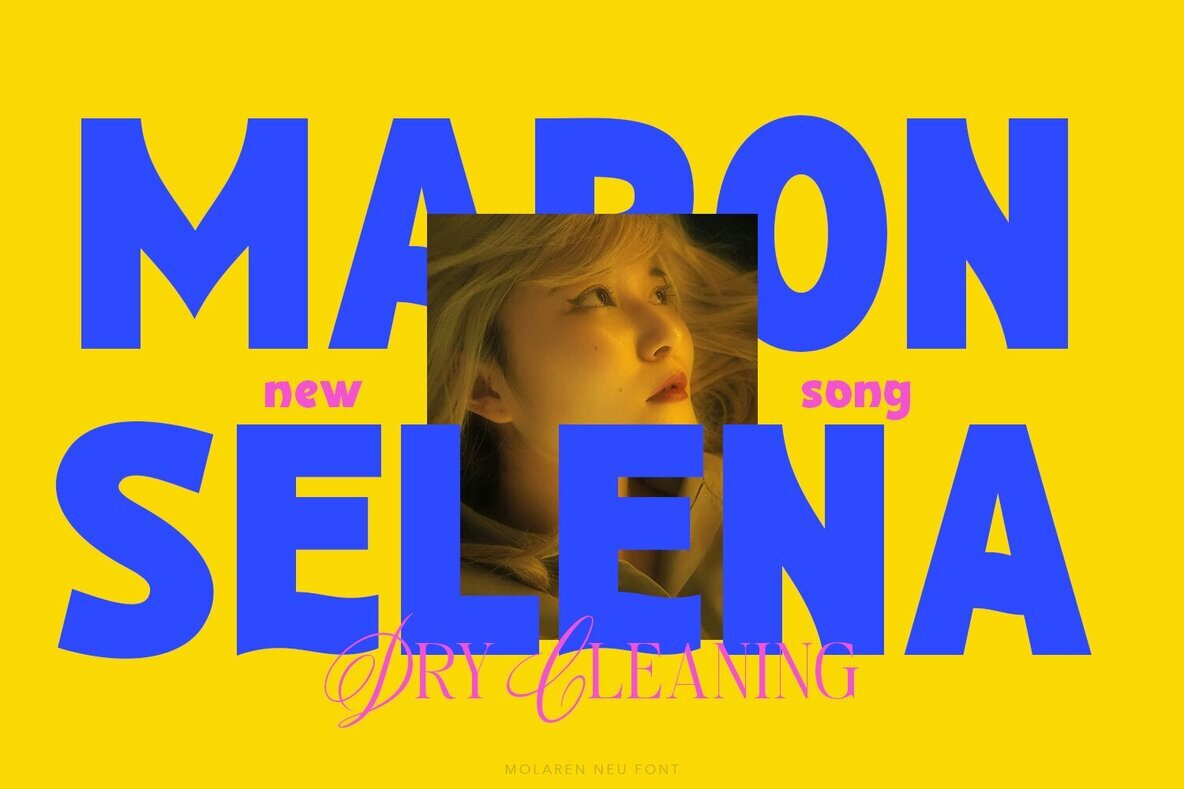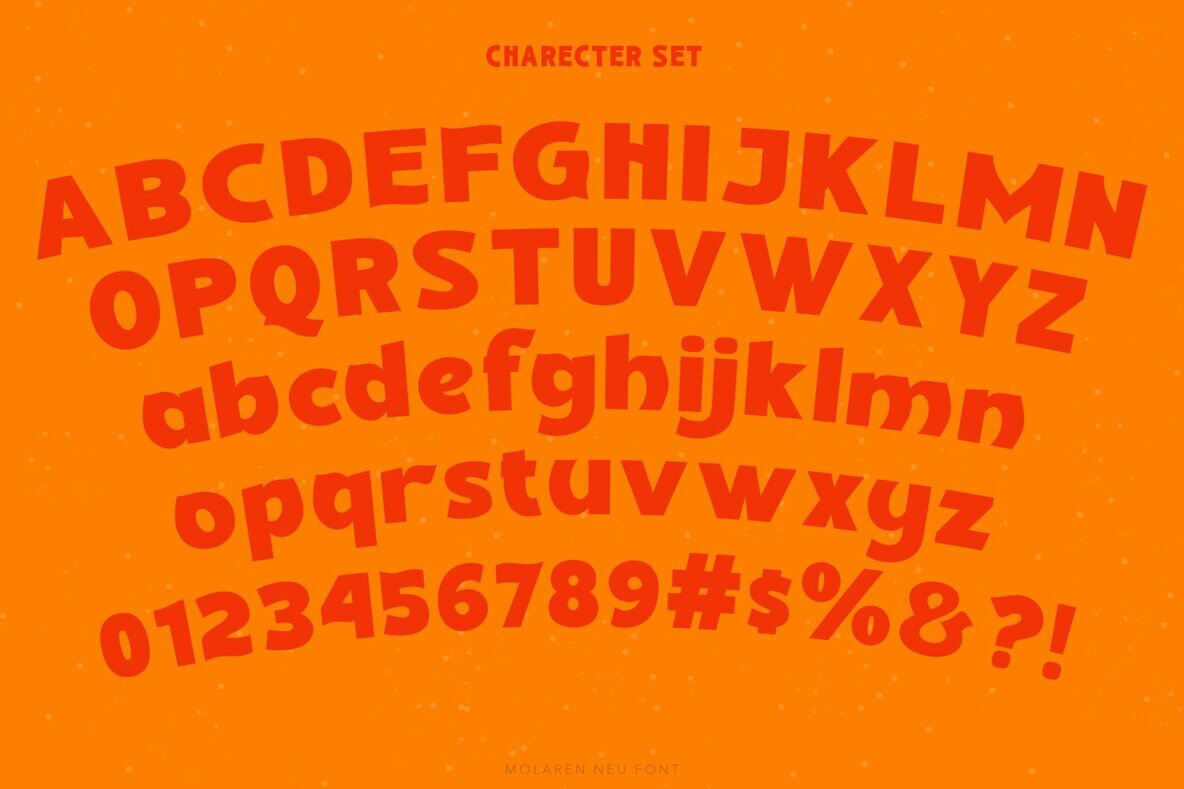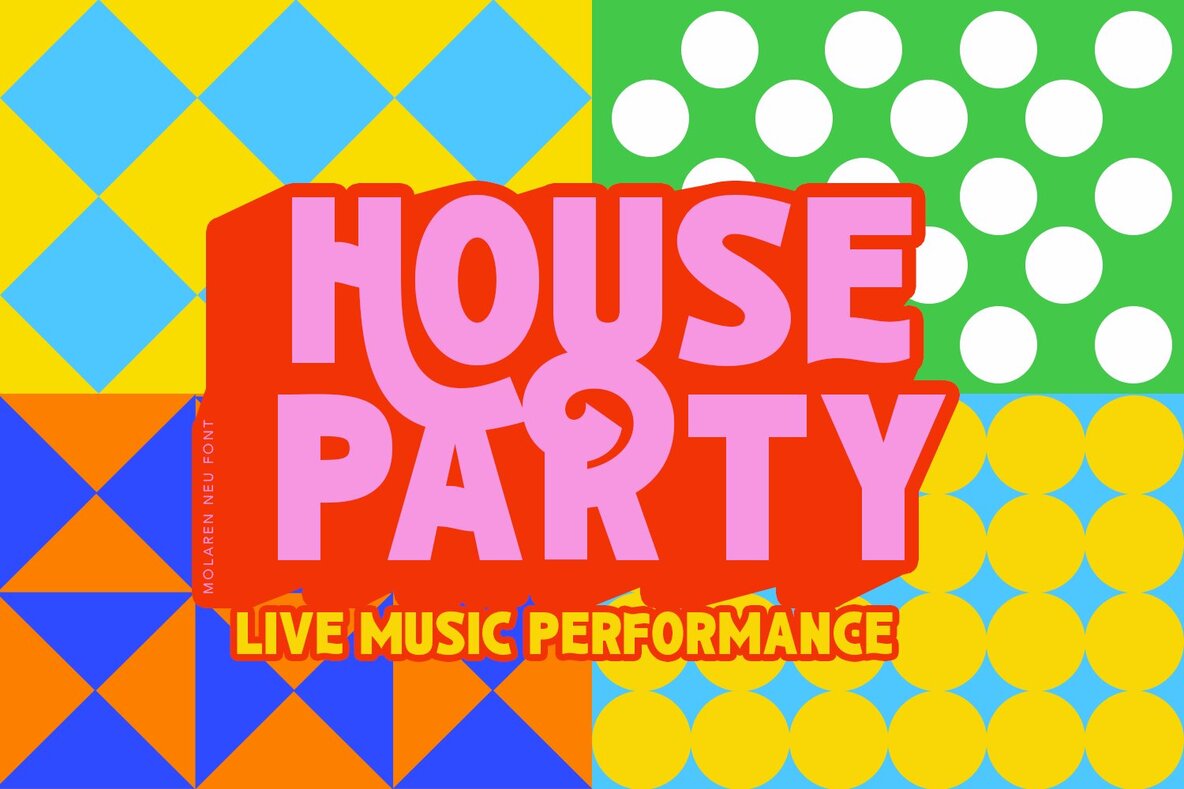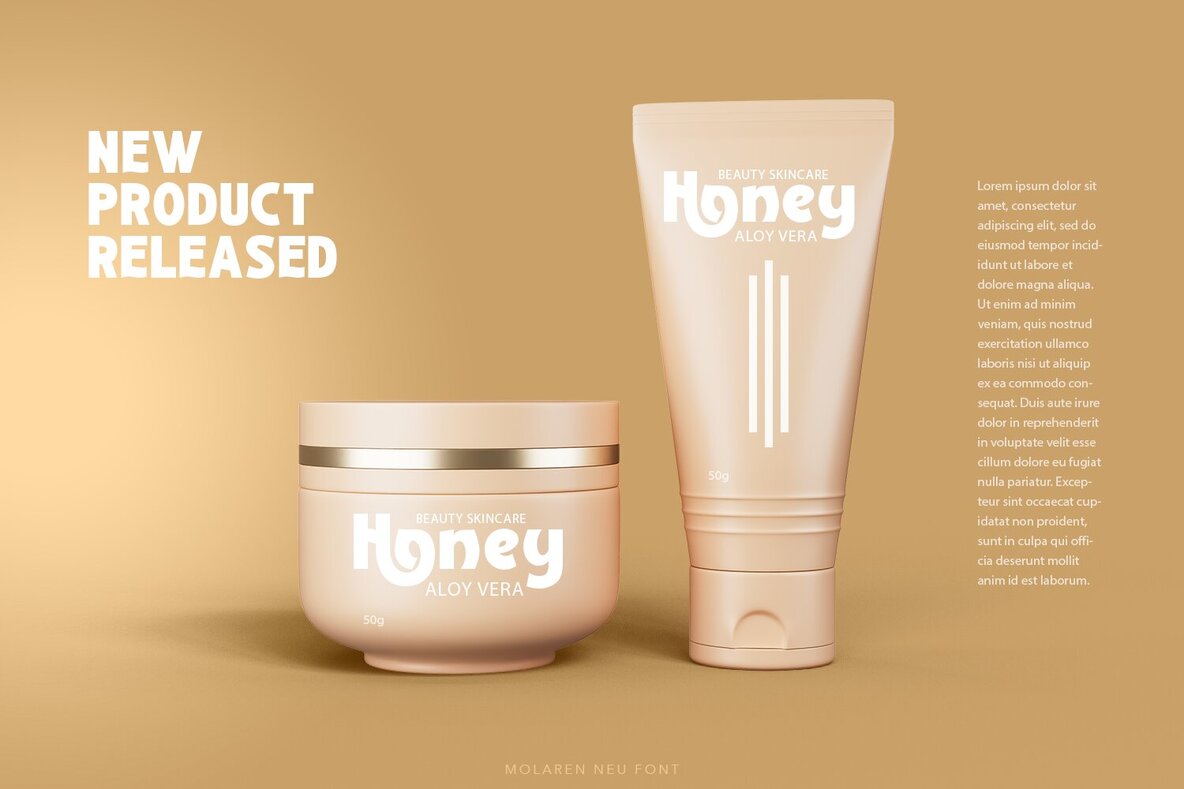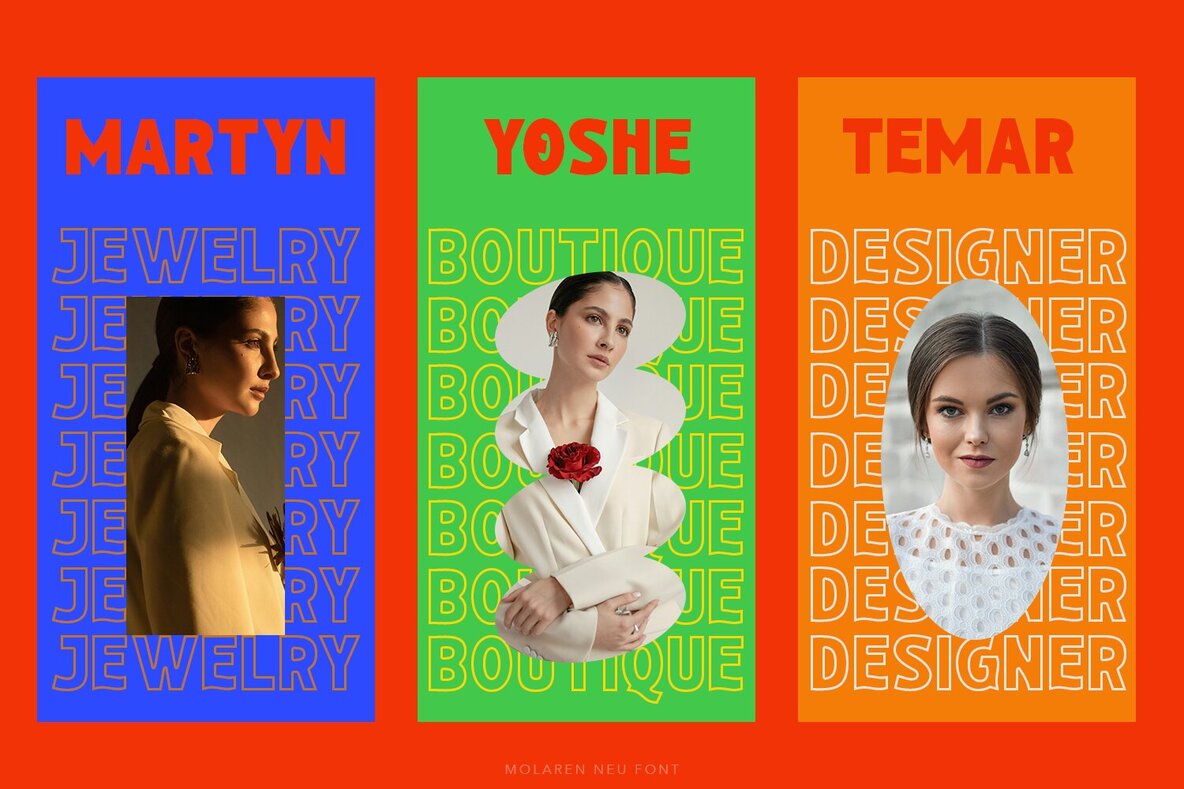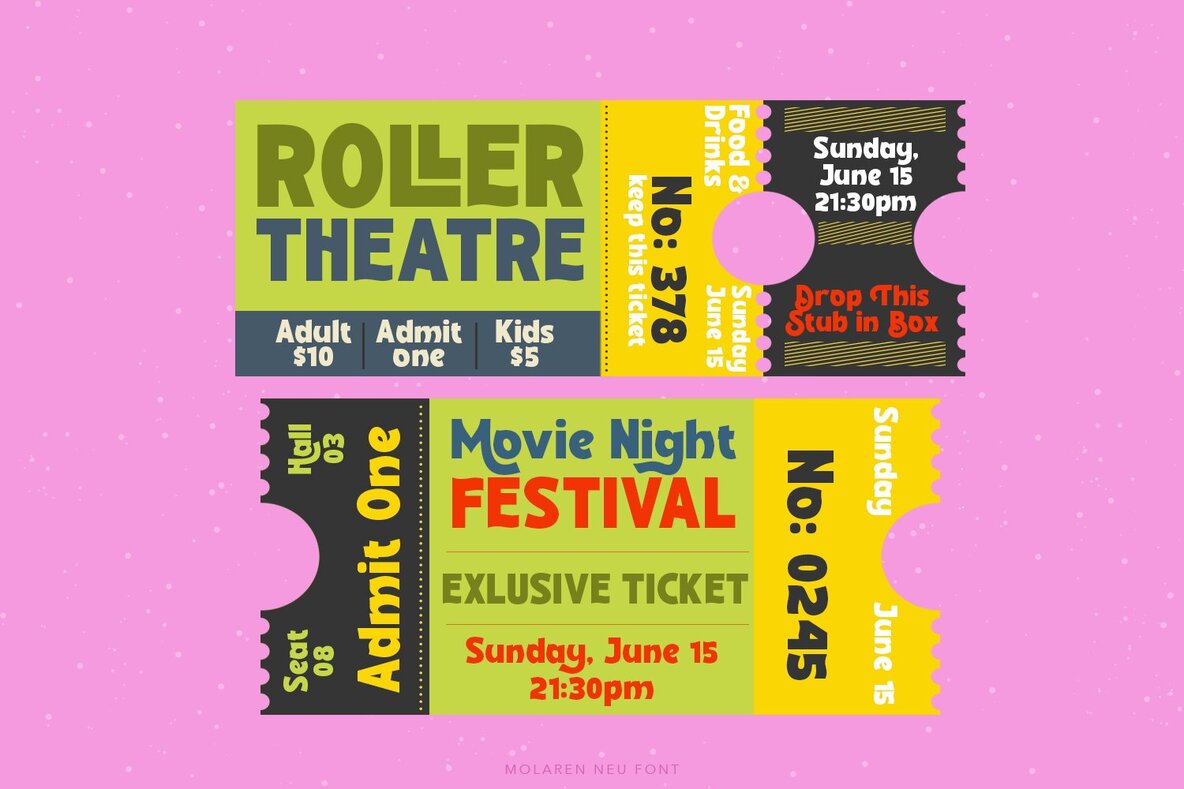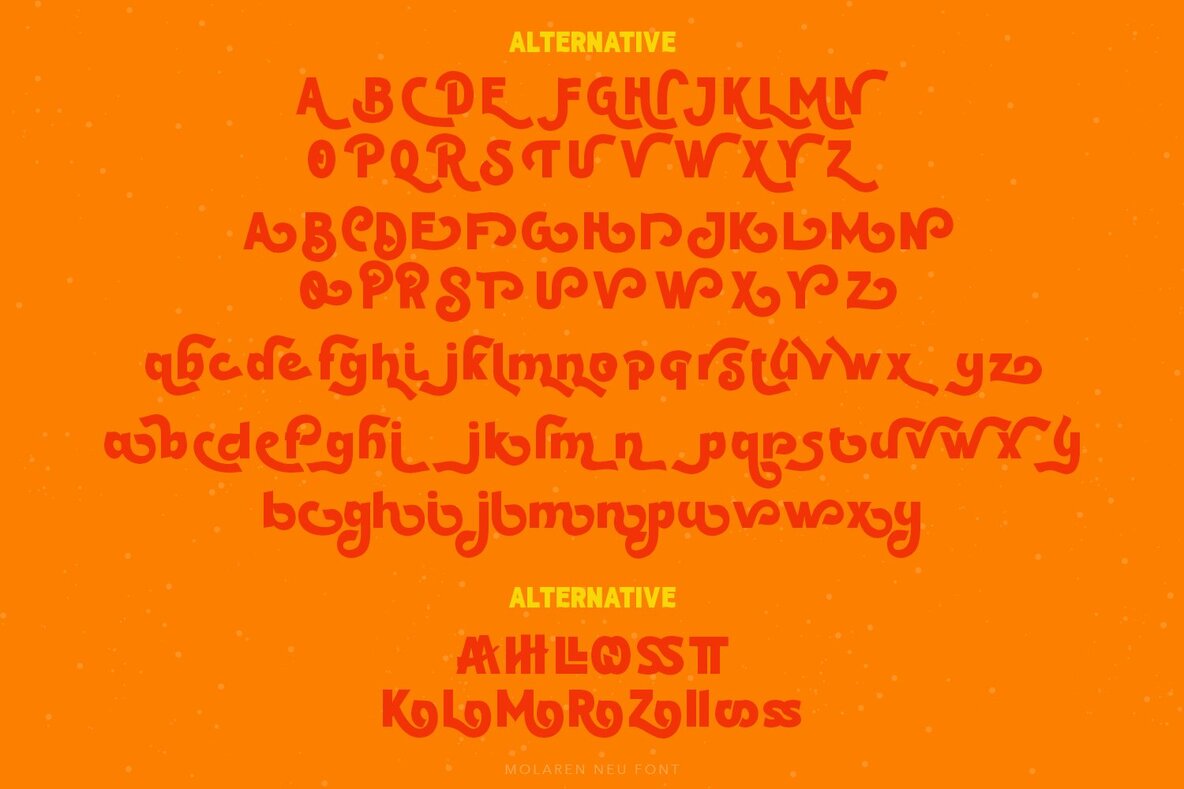
Molaren Neu Font
Molaren Neu is a modern display font characterized by its distinctive and expressive shapes, designed to enhance readability while adding a unique flair to your design projects. The font features a single weight, making it easy to implement across various mediums. Its stylistic alternates and ligatures provide designers with a plethora of creative options, allowing for the creation of a harmonious and rhythmic reading experience. Ideal for graphic designers looking to add a creative touch to their work, Molaren Neu's design ensures that text remains both legible and visually engaging.